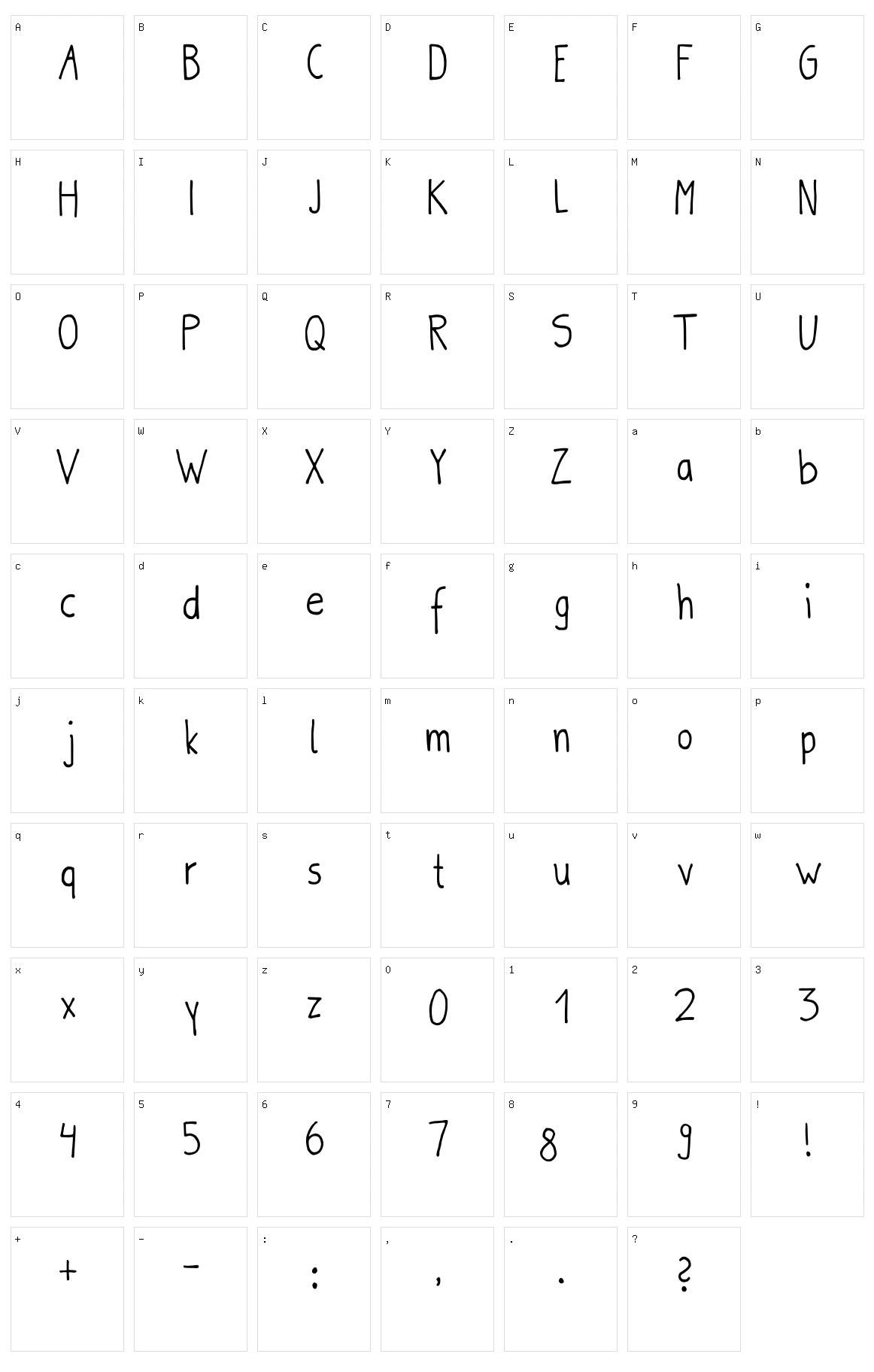
The free font Boldbolder Hand is carefully designed by Ann-Sophie Webering, showcasing a thoughtful balance of creativity and usability and falls under the Script font style. When you download the ZIP file, it contains only 12.61 KB of font files, making it lightweight and quick to download. Please review the license details below to understand permitted usage and distribution rights. If license information is not available, we recommend using this font for personal projects only or contacting the author directly for commercial usage permissions.